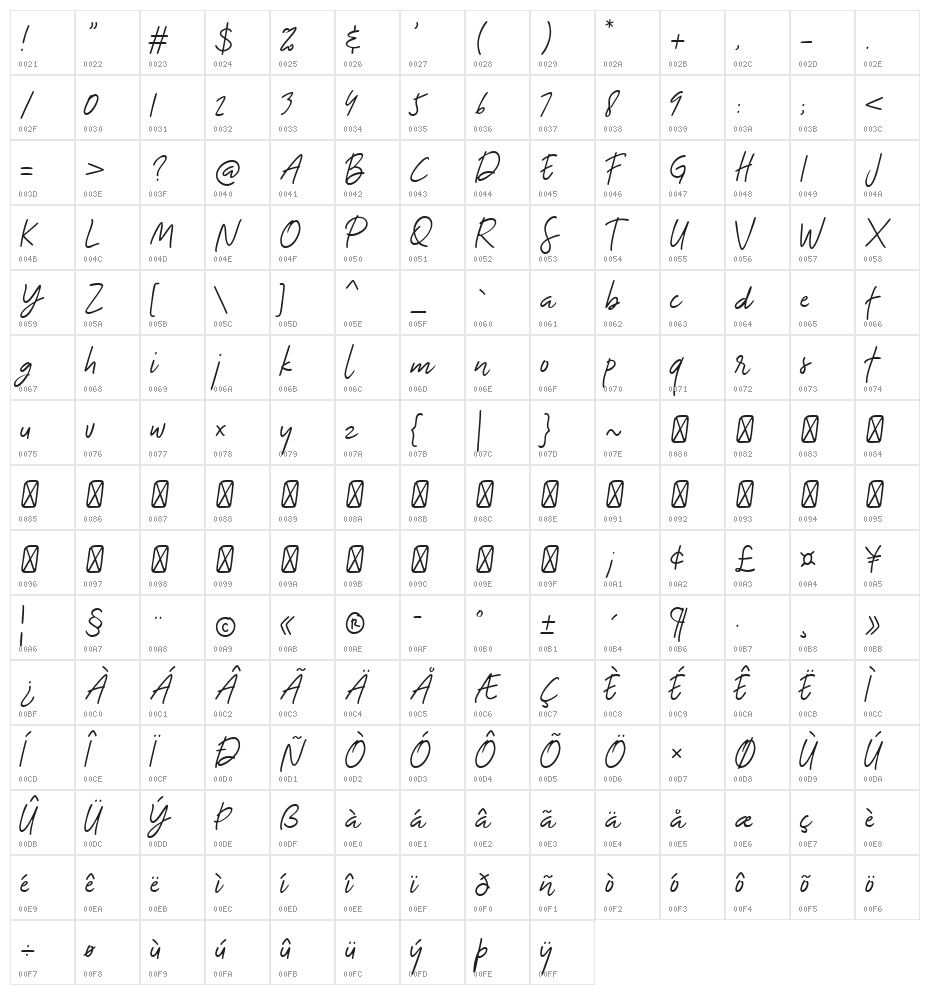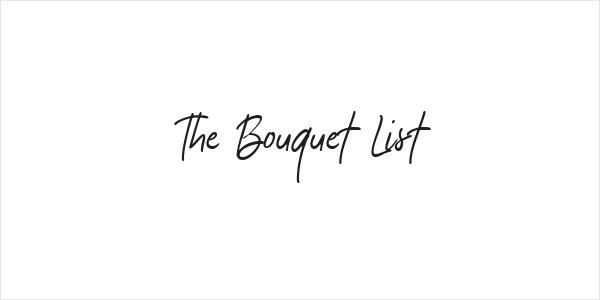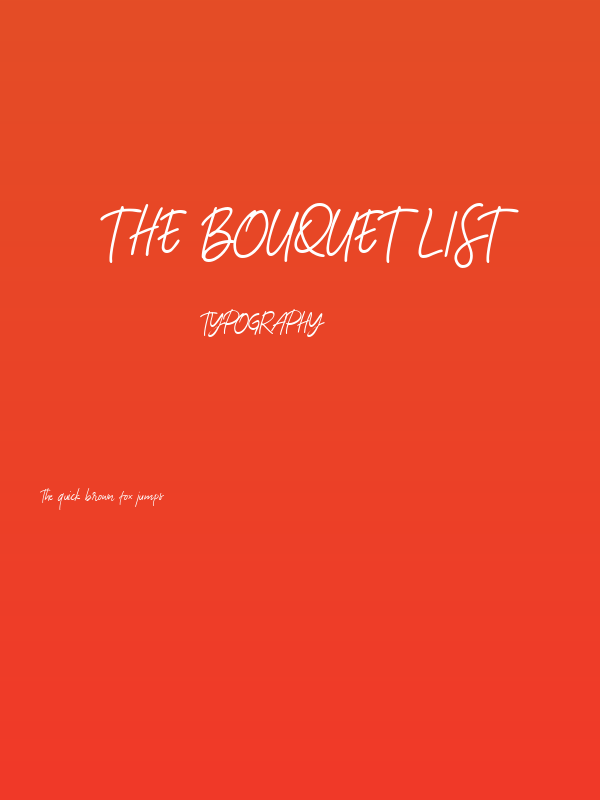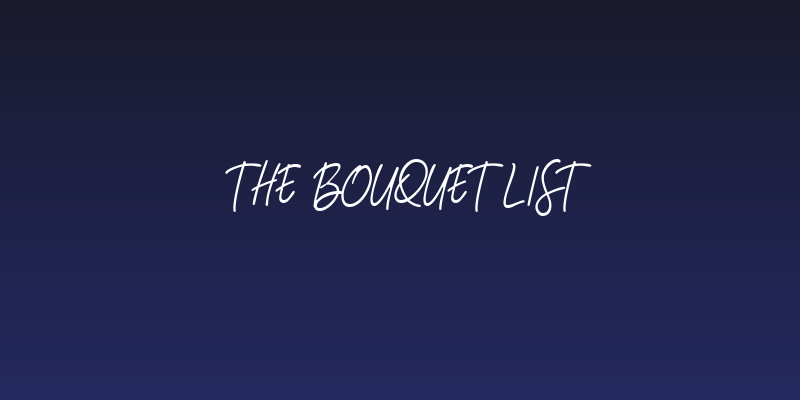
The Bouquet List Font
The Bouquet List Description
This font exudes a lively and expressive handwritten style, characterized by its fluid and dynamic strokes. The letters are crafted with a natural flow, giving the impression of a personal touch. The uppercase letters are bold and slightly slanted, while the lowercase letters maintain a consistent rhythm with a playful bounce. The numerals and special characters follow the same energetic style, ensuring a cohesive look across all text. This font is perfect for projects that require a personal and informal touch, such as invitations, greeting cards, and creative branding.
| Proposed Projects | Ideal for invitations, greeting cards, personal branding, and creative projects. |